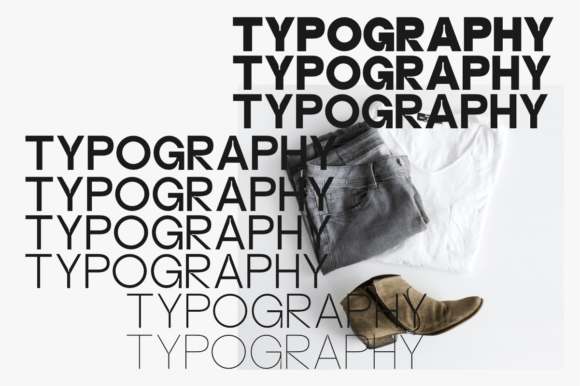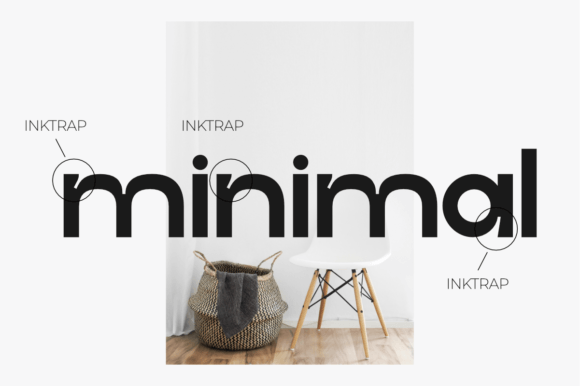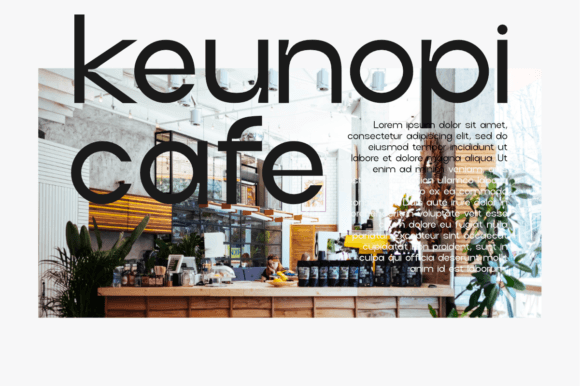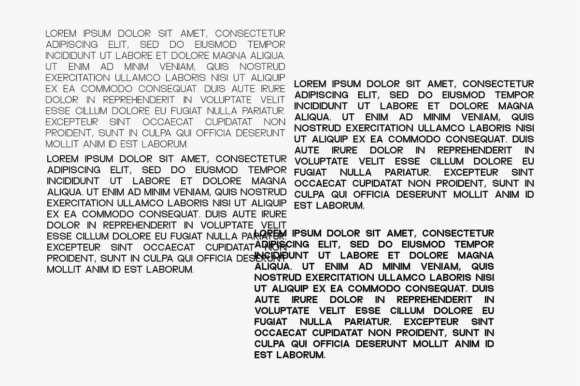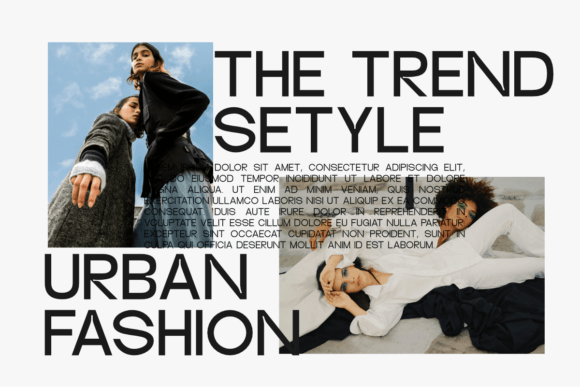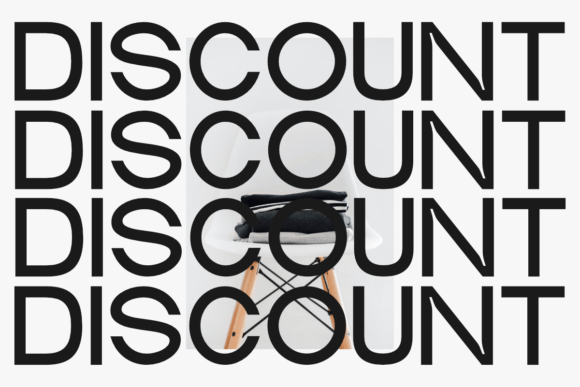
Discover the Versatility of Heliora Font: Elevate Your Designs with Elegance and Clarity
In the world of typography, finding the perfect font that balances elegance, versatility, and legibility can be a daunting task. However, for designers and crafters looking for a typeface that meets these criteria, Heliora Font stands out as an exceptional choice. With its clean lines, balanced proportions, and wide range of weights, Heliora is designed to cater to various design needs, making it an ideal selection for both digital and print projects.
The Essence of Heliora: A Blend of Elegance and Strength
Heliora is crafted with the goal of offering maximum versatility. This font family blends clean lines with balanced proportions, making it perfect for creating dynamic and expressive typography. One of the standout features of Heliora is its ability to pair elegant thin characters with strong bold versions seamlessly. This range allows designers to experiment with different styles and tones, adding depth and character to their work.
Whether you’re working on a branding project, editorial design, or web design, Heliora delivers clarity and style in every weight. The distinctive simplicity of this font is not just aesthetically pleasing but also highly functional. It invites creativity without sacrificing legibility, making it highly relevant for a wide range of contemporary design applications.
Applications of Heliora: Where Versatility Meets Style
The versatility of Heliora makes it suitable for a myriad of design projects. Here are some areas where Heliora truly shines:
- Branding: For businesses looking to establish a strong visual identity, Heliora offers the perfect combination of elegance and strength. Its range of weights allows for the creation of sophisticated logos and marketing materials that stand out.
- Editorial Design: In magazines, newspapers, and books, the readability of a font is crucial. Heliora’s clean lines and balanced proportions ensure that text is easy to read, making it an excellent choice for editorial projects.
- Web Design: For digital platforms, a font must be legible across various devices and screen sizes. Heliora’s design ensures that it remains clear and stylish, enhancing the user experience.
Why Choose Heliora?
With so many fonts available, why should designers and crafters choose Heliora? The answer lies in its unique combination of features:
- Legibility: Despite its elegant appearance, Heliora does not compromise on legibility. It is designed to be clear and readable, even at smaller sizes.
- Versatility: The wide range of weights in the Heliora font family means that designers can use it for virtually any project, from subtle, elegant text to bold, impactful headlines.
- Simplicity: The simplicity of Heliora’s design makes it highly versatile and adaptable to different styles and themes.
Heliora Font is a remarkable addition to the world of typography, offering a perfect blend of elegance, versatility, and legibility. Its design caters to the needs of modern designers and crafters who seek a font that can elevate their projects across various mediums. Whether you’re working on a branding campaign, an editorial project, or a website, Heliora provides the tools to create dynamic, expressive, and professional typography. With Heliora, designers can push the boundaries of creativity without compromising on clarity or style.